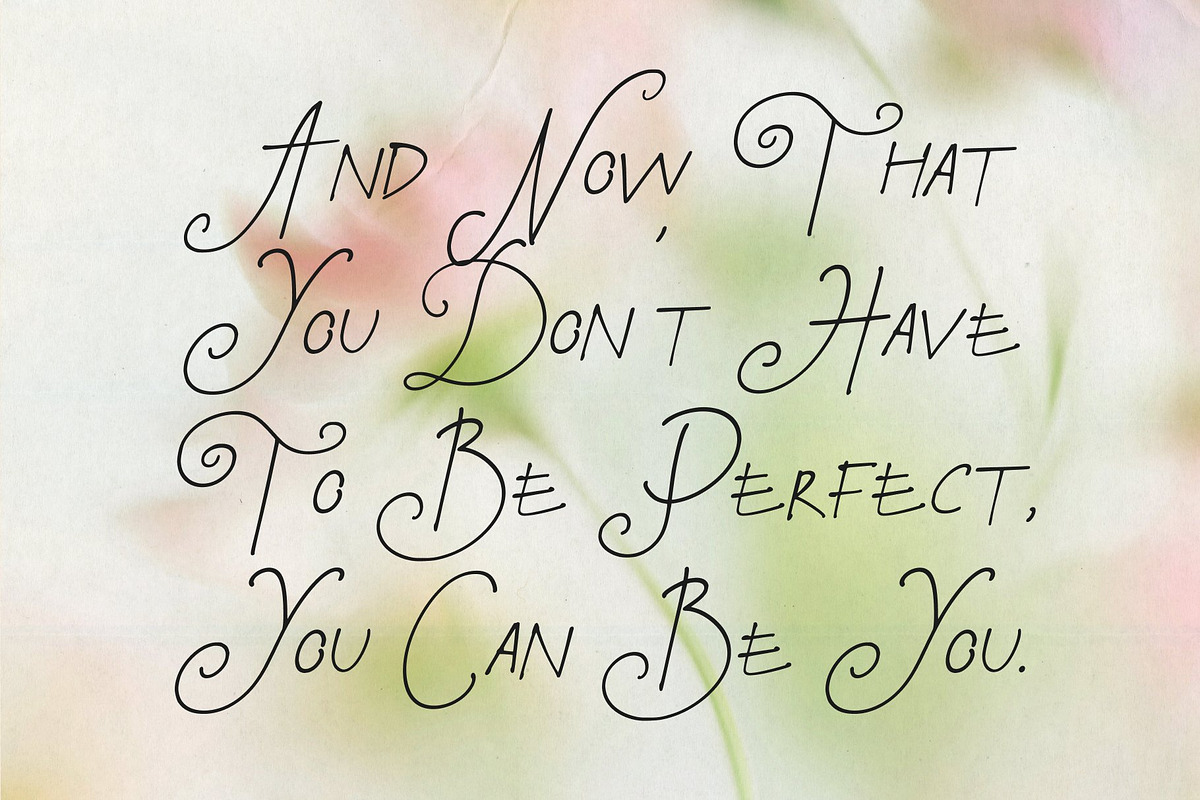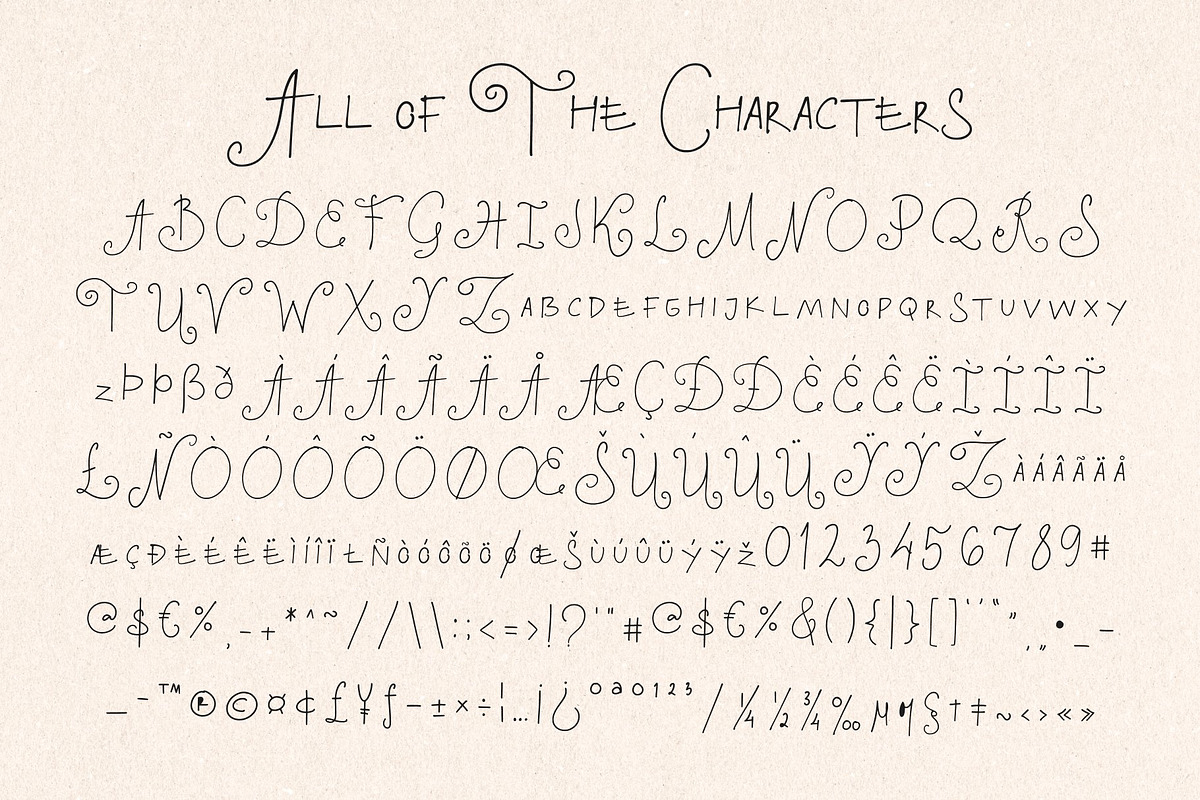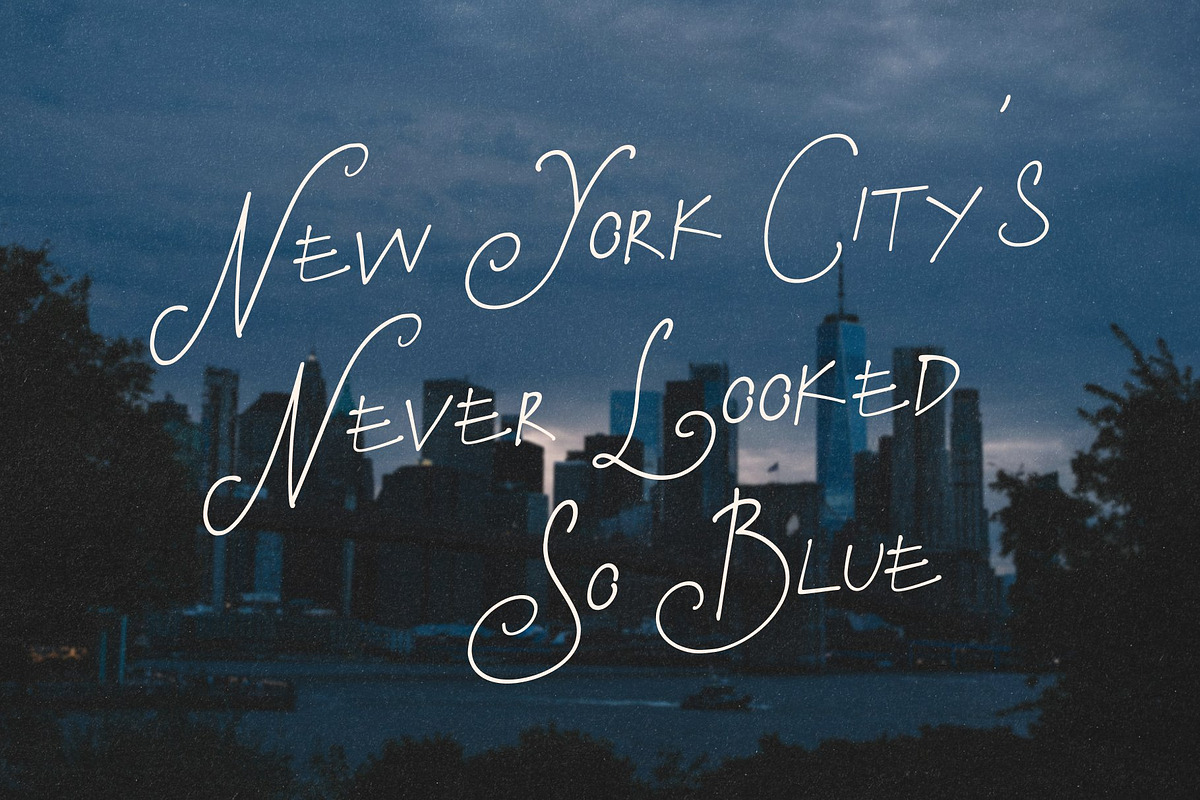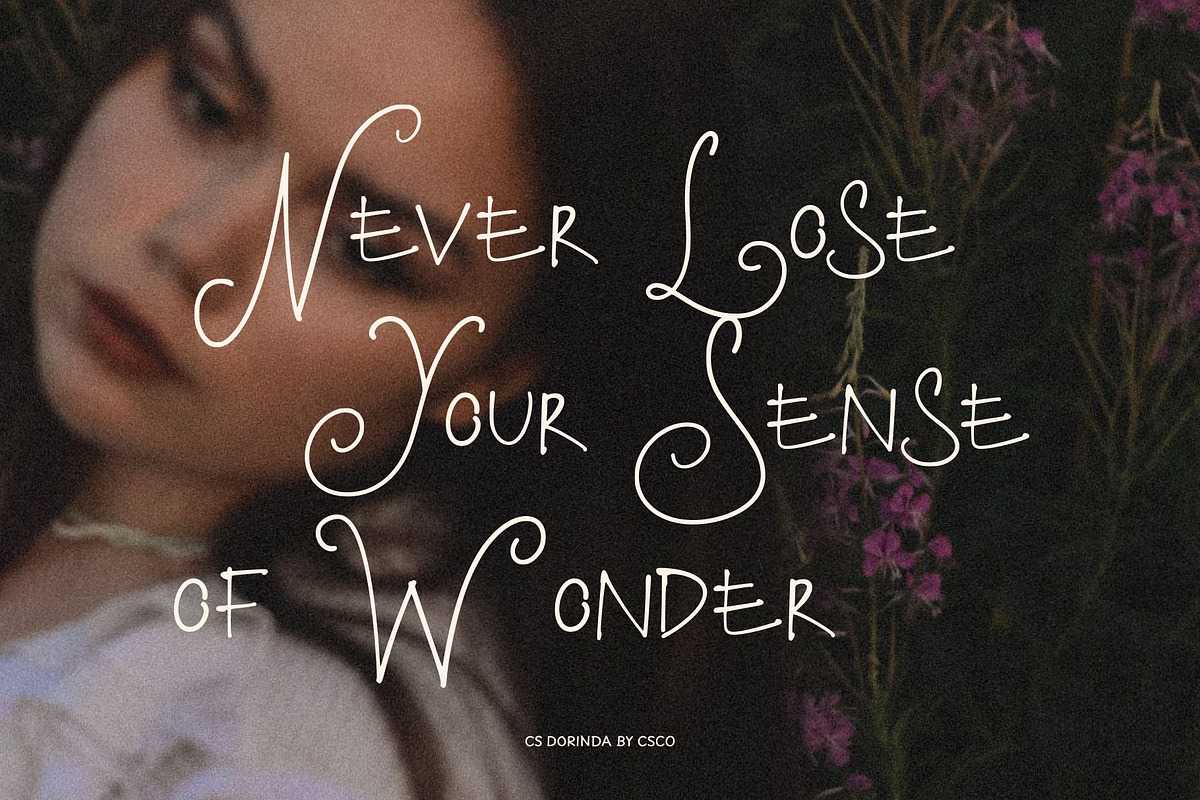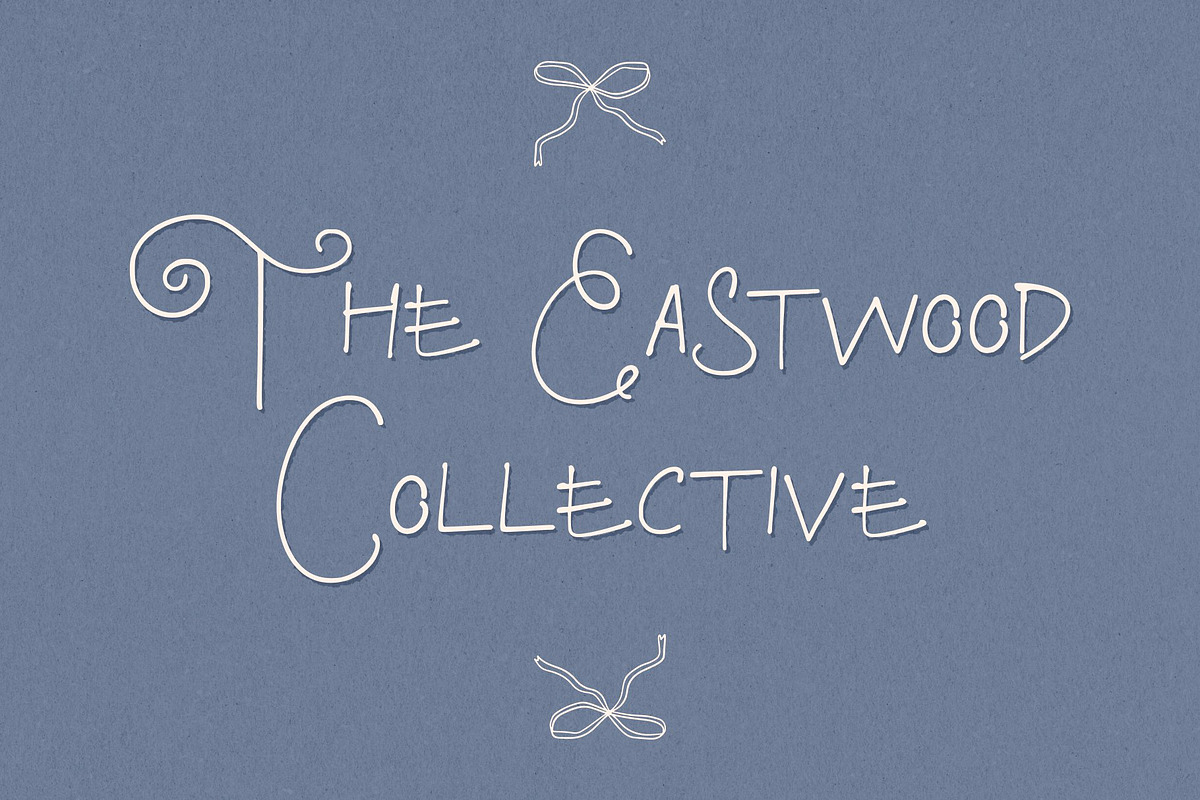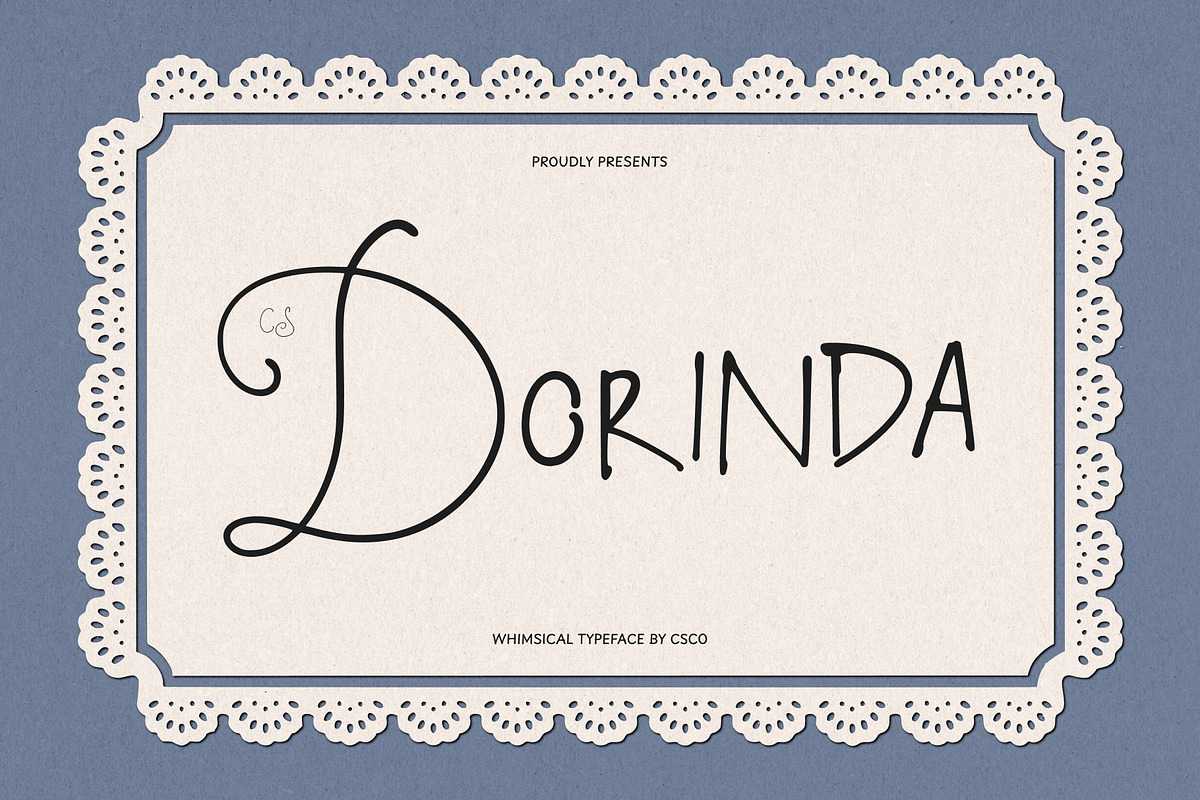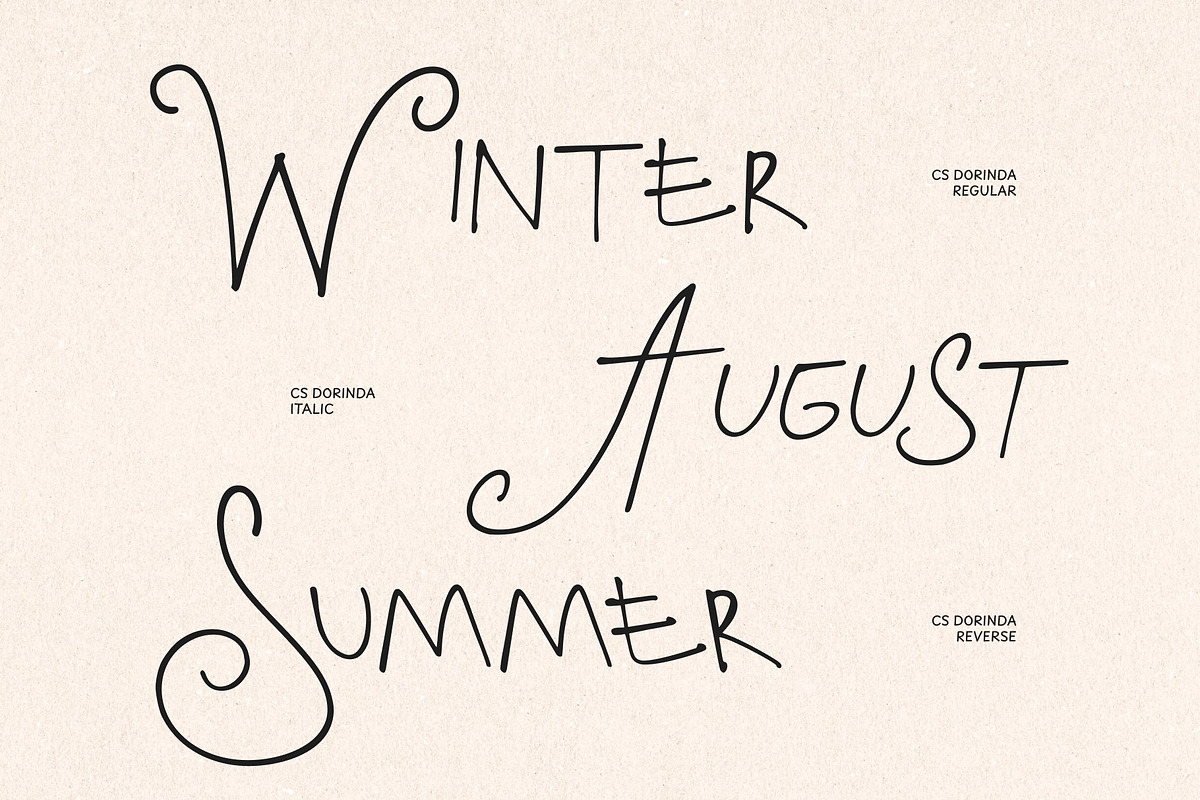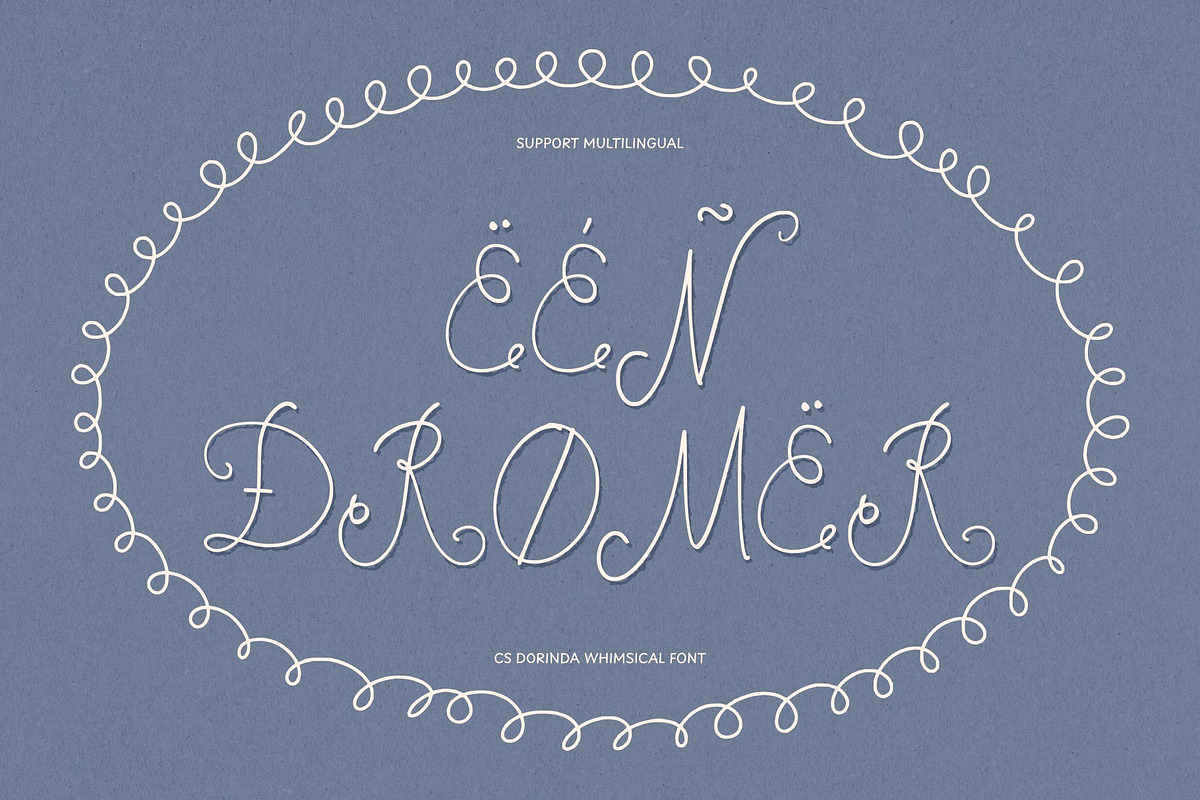
CS Dorinda
Introduce CS Dorinda, a whimsical, hand-lettered caps font designed to bring effortless charm and personality to your creative toolkit. Bridging the distinct character of Lovers in New York with the tactile feel of Elizabeth Darlington, this typeface captures an expressive visual style that feels both nostalgic and refreshingly contemporary. Every character is crafted with care to deliver a lively, distinctive rhythm that instantly draws the eye and warms up any layout.
At the heart of the design is a rich, gel-pen texture on paper, giving digital typography the authentic, imperfect charm of physical handwriting. This unique surface quality adds depth and warmth, ensuring your typography never looks sterile or overly digital. The charming irregularities and smooth flow of the letterforms make it a standout choice for projects that demand a personal touch, human warmth, and artistic flair.
CS Dorinda is ideal for modern stationery, romantic wedding invitations, boutique menus, and bespoke event branding. Whether you are designing artisanal product packaging, lifestyle blog headers, or social media graphics, this caps font provides an instant mood of bespoke elegance. It transforms everyday words into expressive design statements, elevating commercial and personal projects alike with its sophisticated yet approachable spirit.
Bring a soulful, handcrafted aesthetic to your next design challenge with this versatile and expressive typeface. Its balanced proportions and distinctive texture ensure readability while maintaining a playful, artistic edge. Explore the creative possibilities of CS Dorinda and let your next branding or editorial project resonate with genuine character and memorable style.
CS Dorinda Regular
CS Dorinda Italic
CS Dorinda Reverse Italic